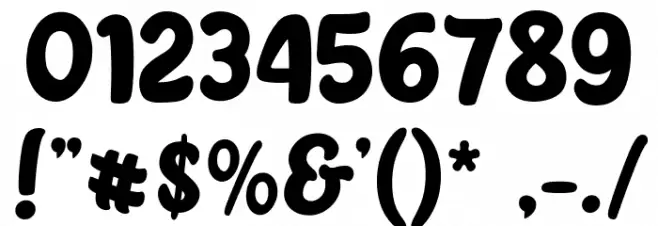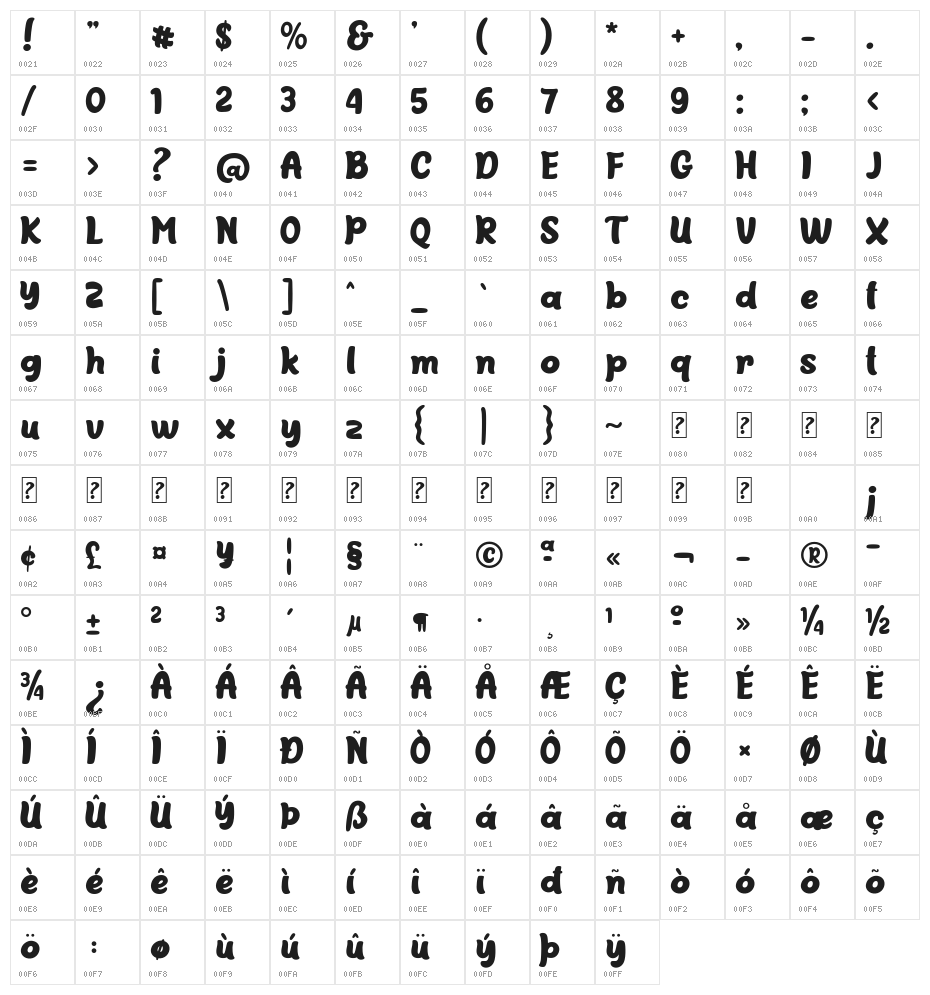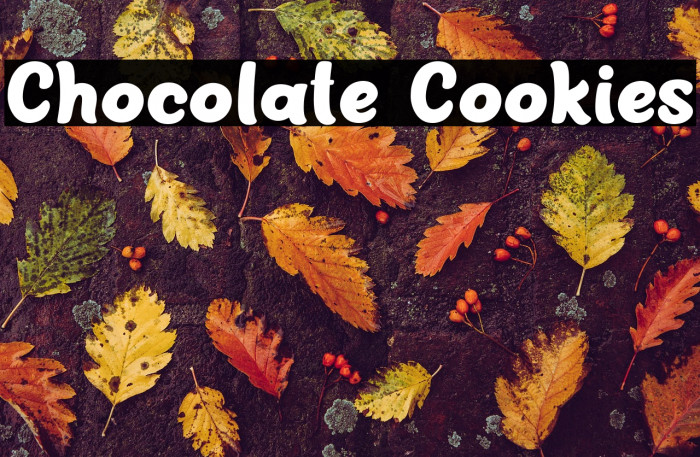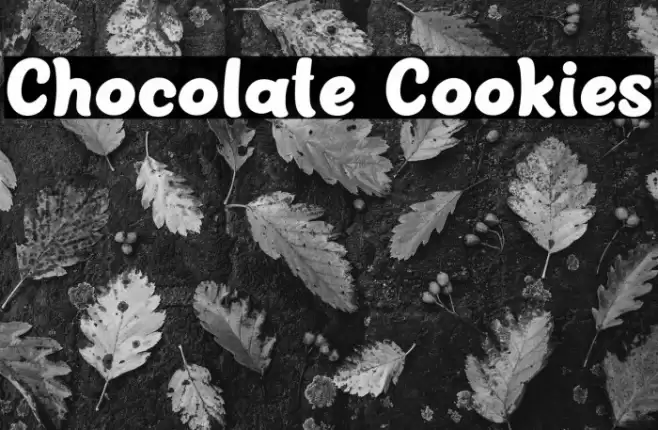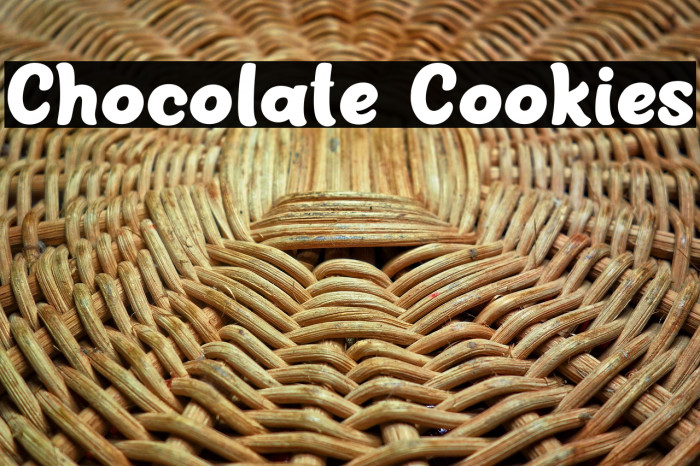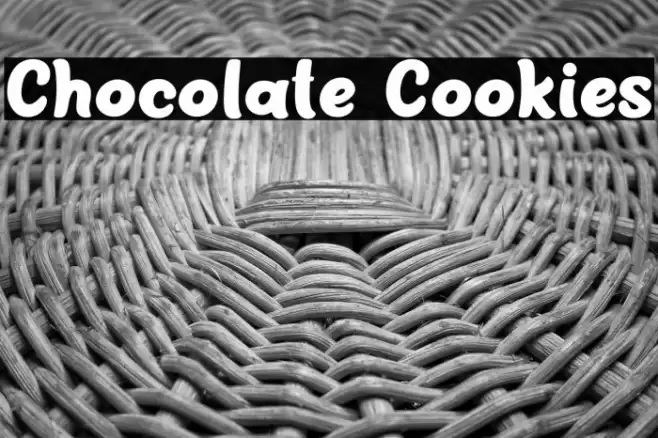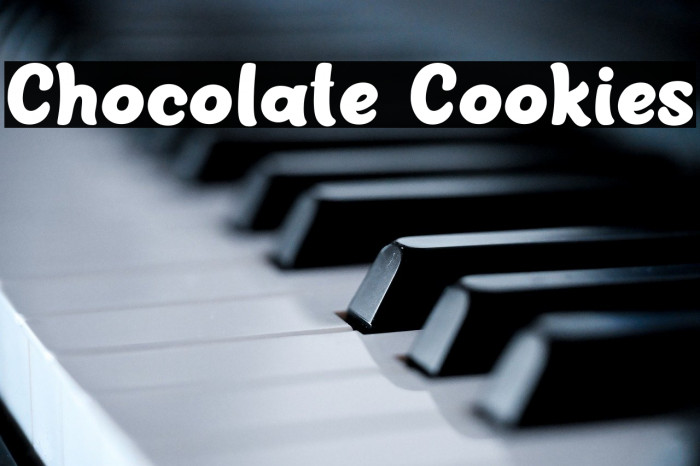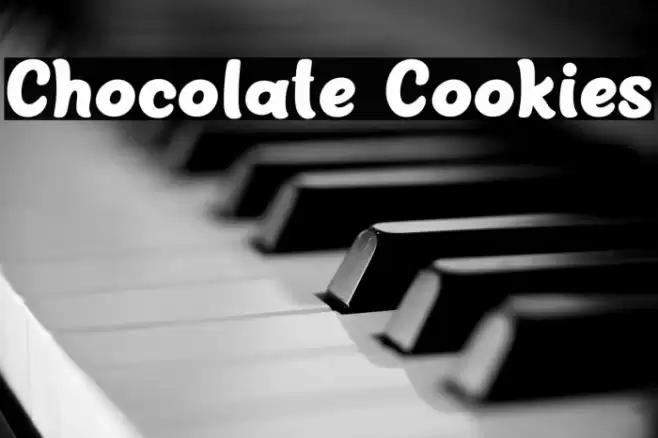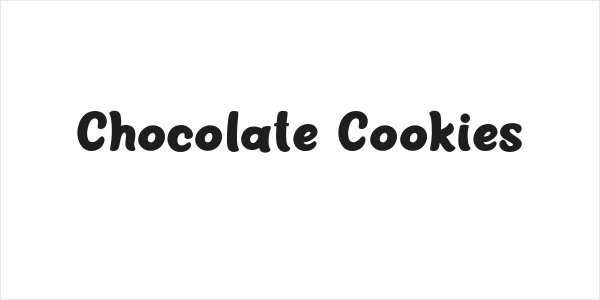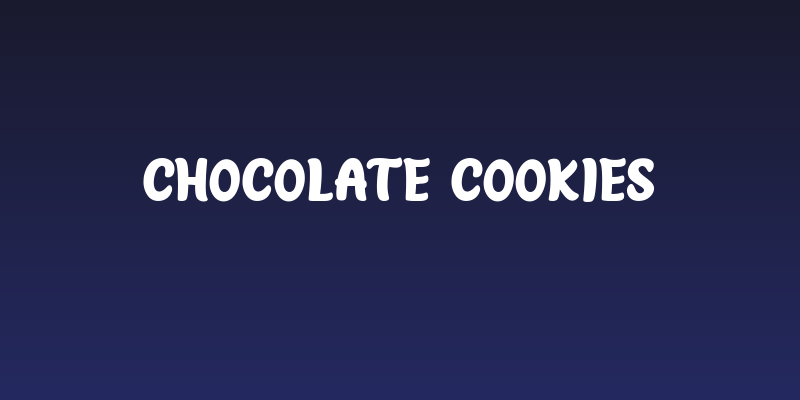
Chocolate Cookies Font
Chocolate Cookies Description
This playful and bold font features thick, rounded strokes that give it a friendly and approachable appearance. The characters are slightly irregular, adding a whimsical touch that enhances its charm. The uppercase and lowercase letters maintain a consistent style, with a smooth flow that makes the text easy to read. The numbers and special characters follow the same design principles, ensuring a cohesive look across all elements. This font's unique style makes it stand out, making it ideal for projects that require a fun and engaging visual appeal.
| Proposed Projects | Ideal for children's books, playful branding, greeting cards, and casual event invitations. |